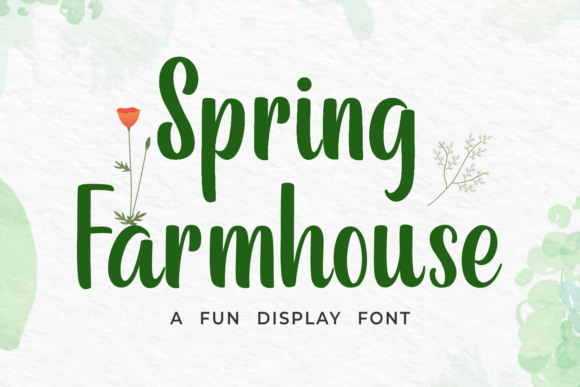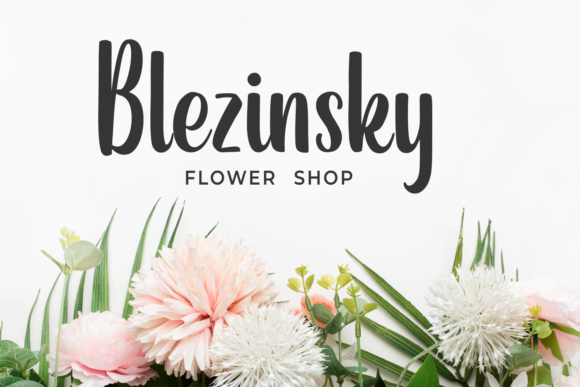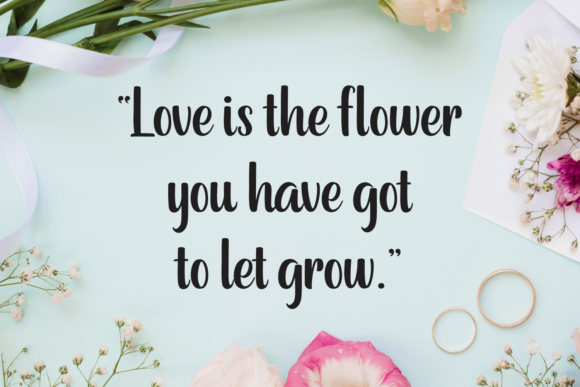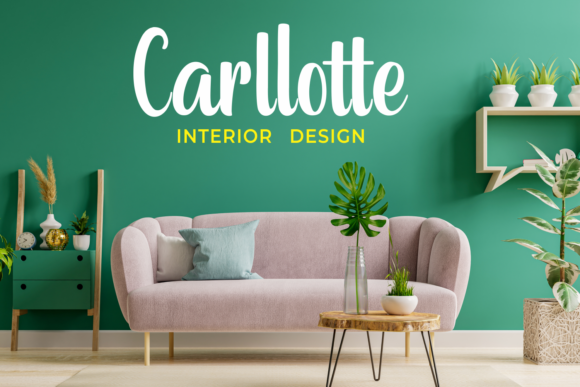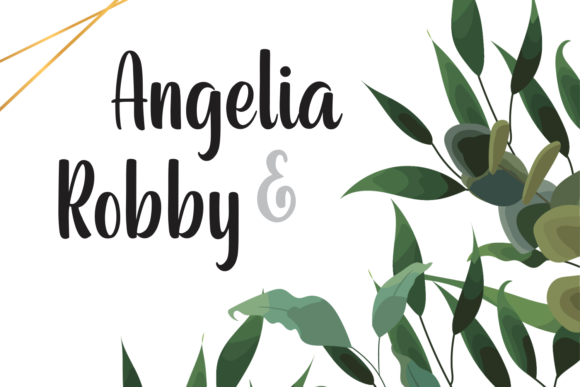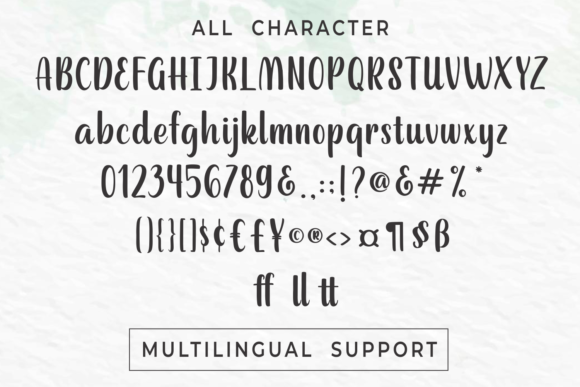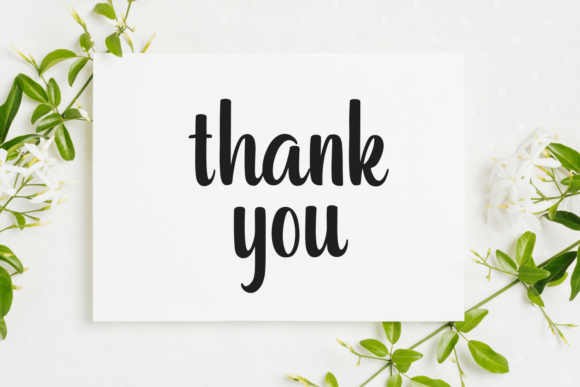
Spring Farmhouse Font
About Spring Farmhouse Font
Spring Farmhouse is a charming and delightful script font that exudes a cute, friendly, and fun personality. This font is infused with a lovely touch of character, making it a perfect choice for a wide variety of creative designs. With its unique charm, Spring Farmhouse adds a playful and inviting quality to your projects, allowing you to bring your most creative ideas to life and create stunning designs with ease.
The friendly nature of Spring Farmhouse makes it versatile and suitable for a diverse range of applications. Whether you’re working on branding, invitations, posters, social media graphics, or any other design project, this font injects a dose of warmth and character that resonates with audiences.
Spring Farmhouse’s script style adds a handcrafted and personal feel to your text, making it ideal for projects that aim to evoke a sense of authenticity and creativity. Its fun and cute demeanor make it an excellent choice for designs that seek to communicate joy, friendliness, and approachability.
Incorporate Spring Farmhouse into your creative toolbox, and let its unique personality shine in your designs. Whether used for headers, titles, or body text, this font brings a touch of whimsy and charm, allowing you to craft visually appealing and engaging compositions that leave a lasting impression.
In summary, Spring Farmhouse is more than just a font; it’s a cute, friendly, and fun design companion that enhances the creativity of your projects. Embrace its lovely character and let it become an essential element in creating stunning designs across a variety of creative endeavors.